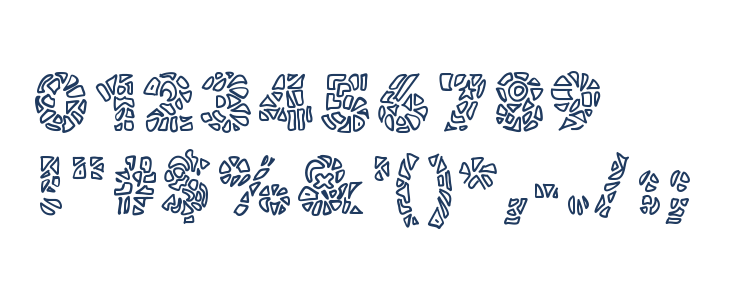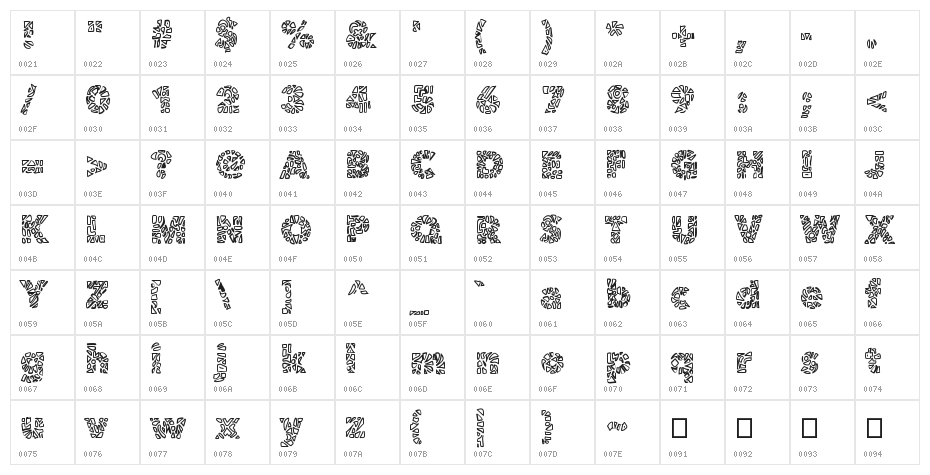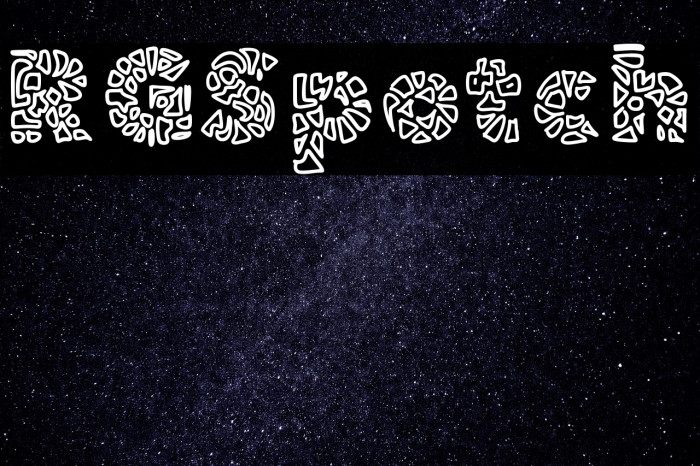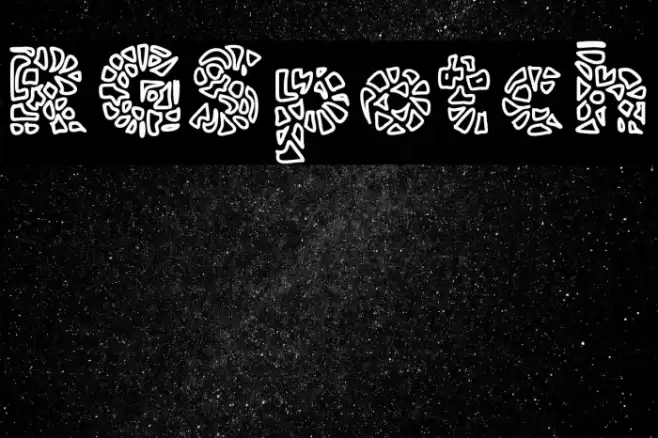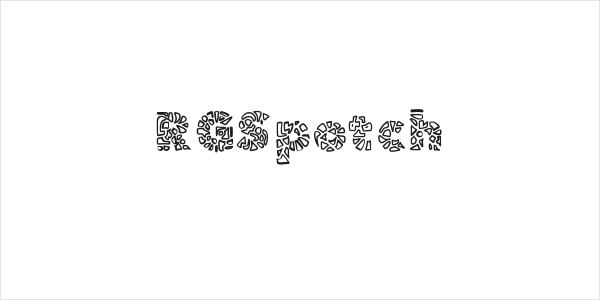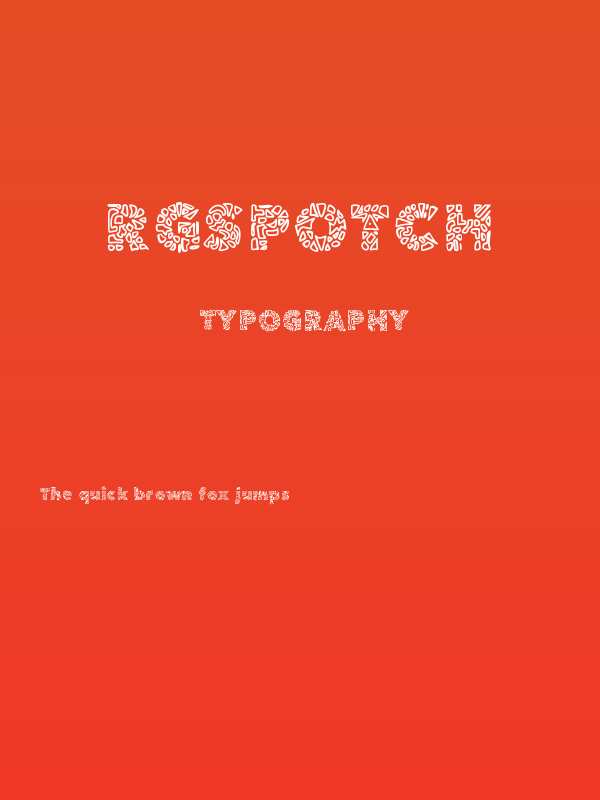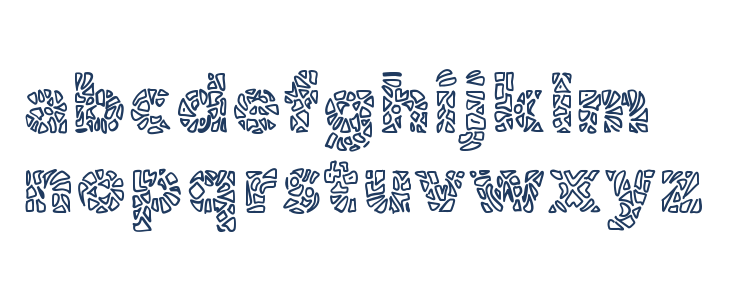
RGSpotch Font
RGSpotch Description
This font features a unique, decorative style with intricate patterns filling each character. The letters are bold and eye-catching, making them ideal for creative and artistic projects. The design incorporates abstract shapes within each letter, giving it a playful and modern appearance. The font maintains a consistent weight throughout, ensuring readability despite its complex design. The characters are evenly spaced, providing a balanced look. This font is perfect for projects that require a standout, artistic touch.
| Proposed Projects | Ideal for posters, album covers, artistic branding, and creative event invitations. |